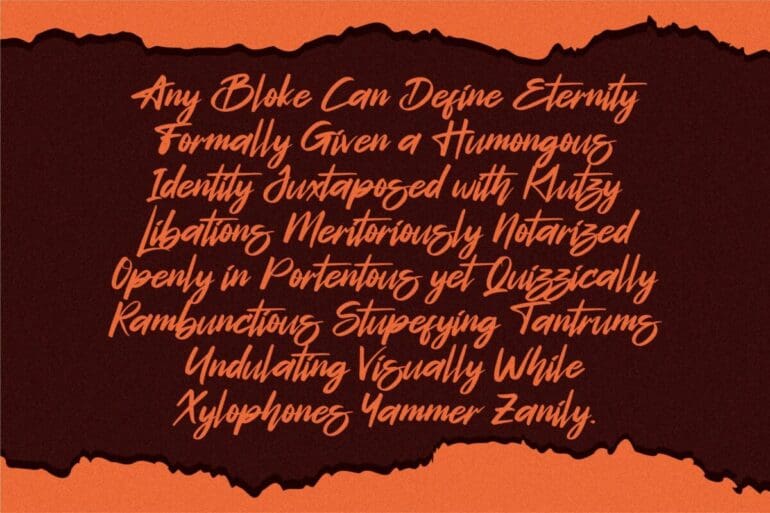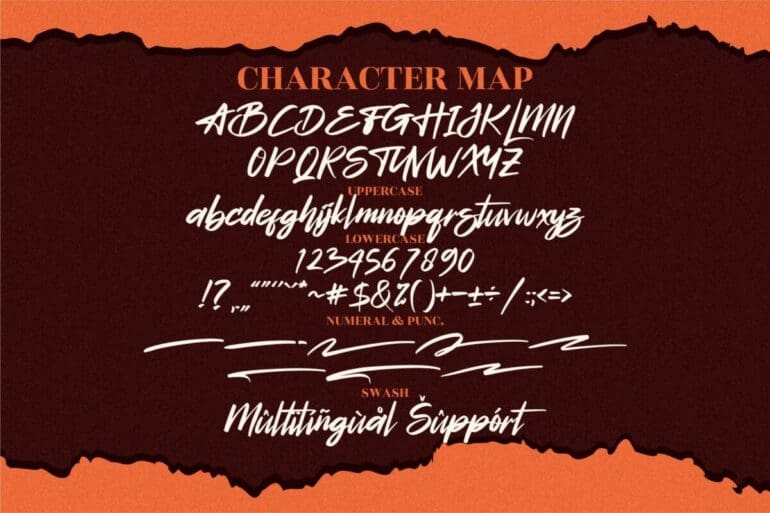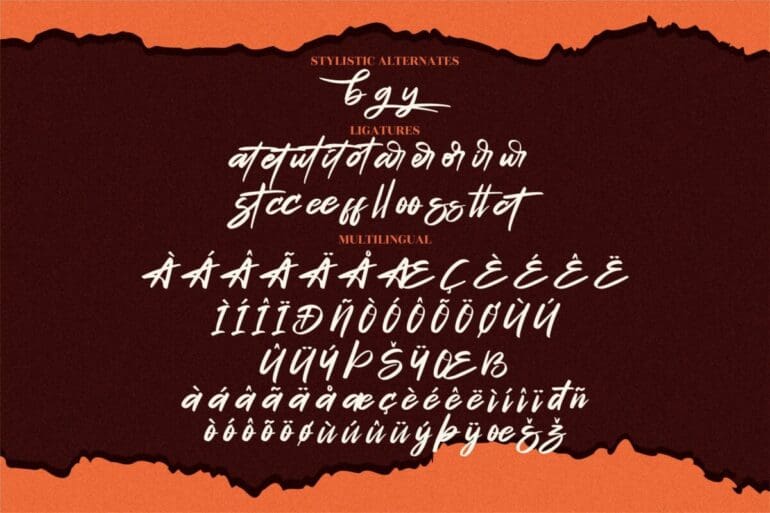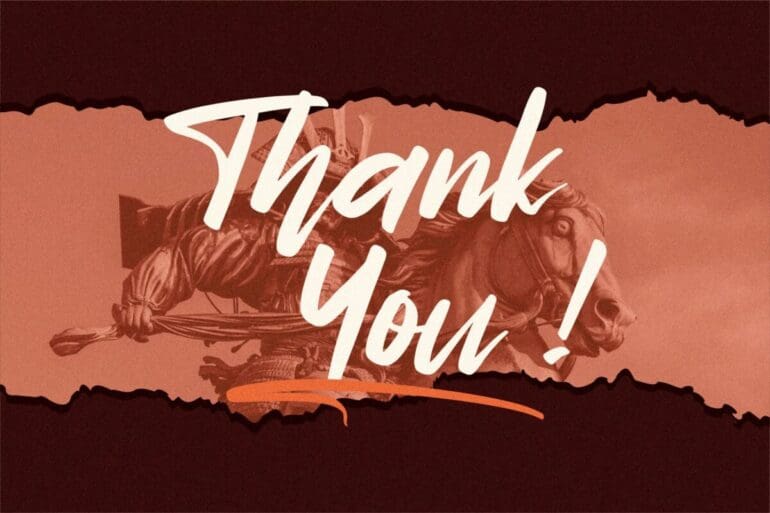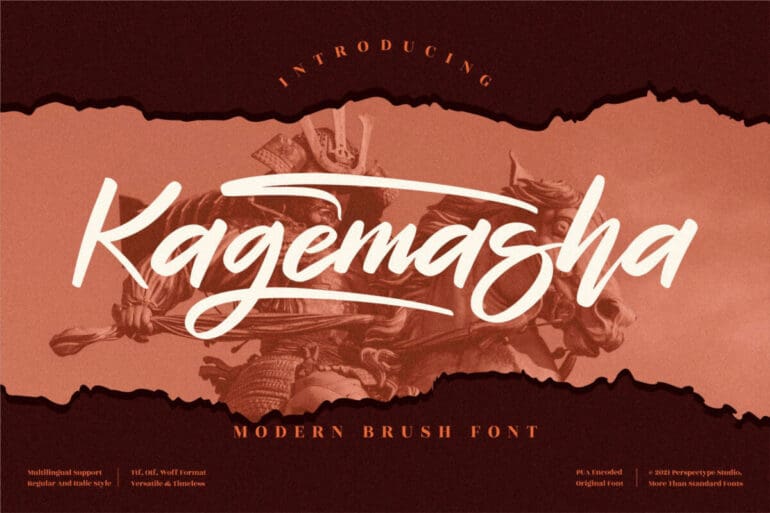
Kagemasha Font
Kagemasha is an elegant Brush Font with a contemporary atmosphere and impeccable form, inspired by a timeless classic calligraphy. Not too thin and not too thick, balanced and varied, this font was designed to enhance the beauty of your projects.